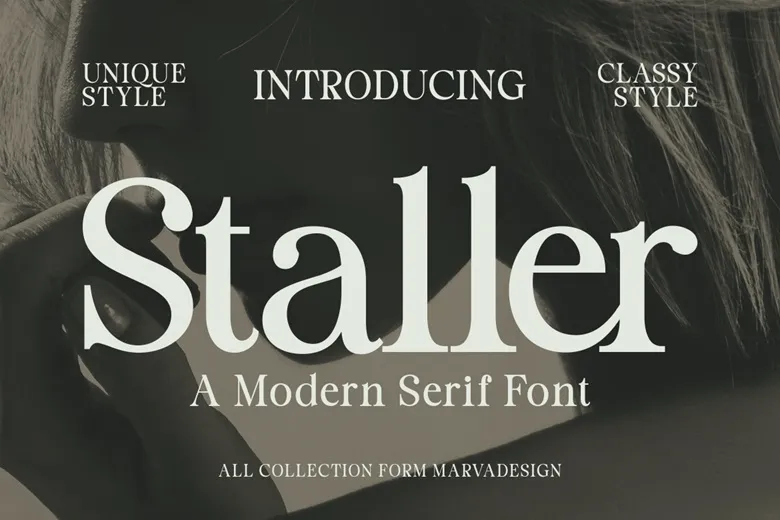
Staller is a sophisticated font with serif style that has the elegance of retro appeal with the modern style. Its letter forms are very well designed and portray the elegance of the traditional form of design. Staller is uniquely suitable for use in environments where a clean, elegant typeface is needed for a wide range of applications.